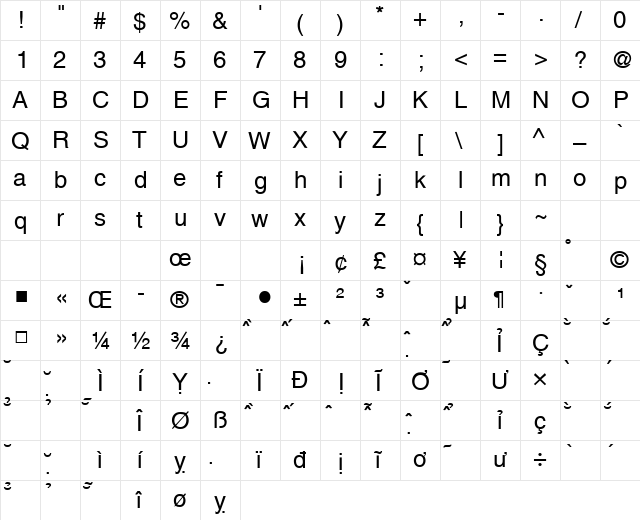
VNI-Helve Normal
Design Context for VNI-Helve Typeface
VNI-Helve takes a measured approach to typography — its balanced proportions and neutral character make it a reliable workhorse for both digital and print work.